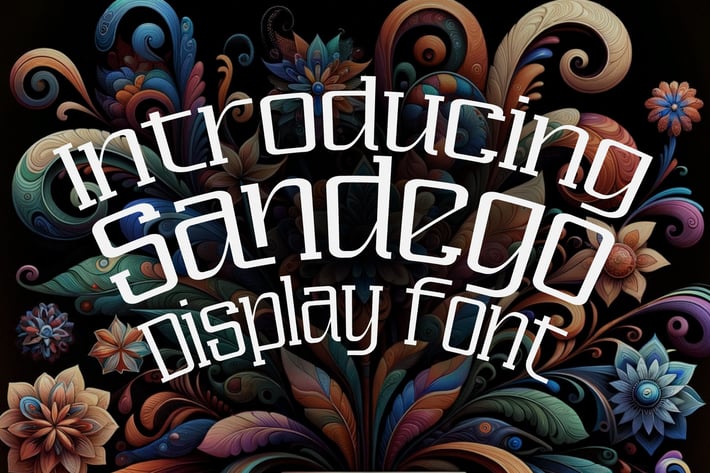
Sandego Display Font
Sandego Display Font this possesses distinctive features that make it stand out and unique. With its innovative design, the font showcases unusual letter shapes and sharp angles, providing a modern and avant-garde impression. This is the kind of font designed to grab attention and convey messages in a bold and direct manner.
Its thick and bold letters are signature characteristics, making it highly suitable for application in titles or headlines that require strong appeal. The contrast between the thick and thin parts of the letters adds depth and dimension to the text, rendering it more dynamic and attractive.
The modern aesthetic of this font complements designs aimed at futuristic or avant-garde appearances. With its contemporary vibe, the font can complete a variety of designs that lean towards a more modern and innovative direction. Categorized as a display font, it is most effective when used in large sizes, such as for titles, posters, or other promotional materials.
Overall, the design of this font combines boldness with innovation and modern aesthetics, making it an excellent choice for branding, titles, or design projects that aim to stand out and leave a strong impression. It is the right choice for those wishing to communicate messages in a unique and memorable way.
Standard glyphs uppercase and lowercase letters
Numerals, a large range of punctuation and ligatures.
Swashes, Stylistic Set
Multilingual support for; ä ö ü Ä Ö Ü ß ¿¡